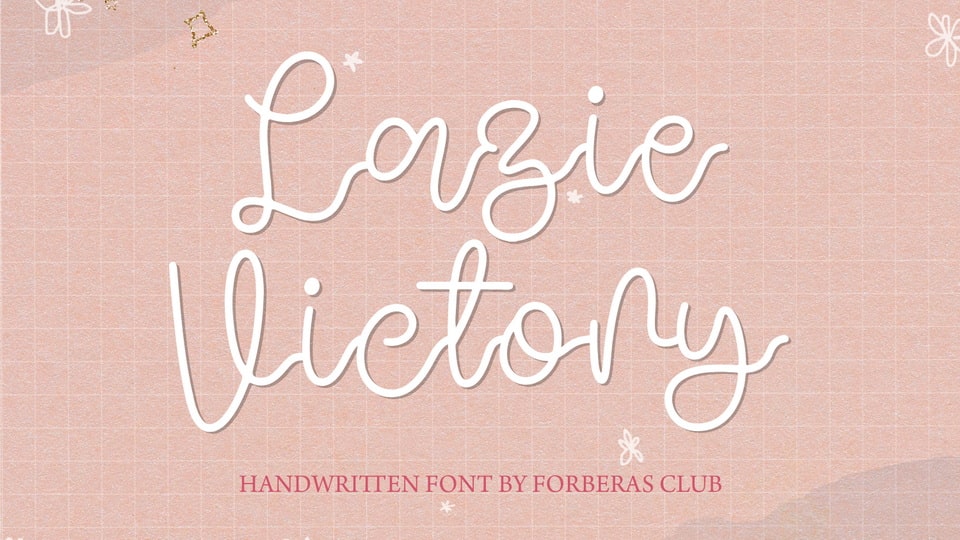
Download Lazie Victory font, a handwritten script typeface especially designed for elegant, feminine projects. Lazie Victory font is perfect for creating modern and chic designs such as logos, packaging, editorials and more.